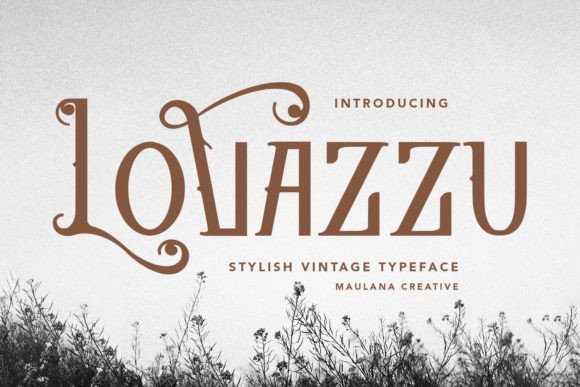
In a world awash with digital monotony, your brand craves a voice that speaks to the heart, a visual identity that captivates the senses and leaves an indelible mark on the minds of your audience. Enter Lovazzu Font, the ultimate display font crafted with meticulous attention to detail, exuding an aura of vintage elegance and timeless sophistication.
Lovazzu Font is a meticulously crafted masterpiece that embodies the essence of classic signage, where each letter dances with a graceful allure. Its stylish swirls and elegant curves evoke a sense of nostalgia, transporting you to an era where craftsmanship and artistry reigned supreme. This font is a testament to the enduring power of beauty, seamlessly blending the charm of the past with the vibrancy of the present.
With Lovazzu Font as your creative ally, you can unleash your imagination and craft designs that resonate with your audience on a profound level. Its versatility extends from eye-catching logos and captivating titles to elegant headings that command attention. Whether you're embarking on a branding project, creating marketing materials, or designing social media graphics, Lovazzu Font will elevate your creations to new heights.
Imagine your brand's name, rendered in the exquisite strokes of Lovazzu Font, becoming an emblem of sophistication and timeless appeal. Your website headlines will dance with a newfound energy, captivating visitors and inviting them to delve deeper into your digital abode. Social media posts adorned with Lovazzu Font will ignite conversations and leave a lasting impression on your followers.
Lovazzu Font is more than just a collection of characters; it's an invitation to embark on a creative journey, to transcend the ordinary and embrace the extraordinary. Its vintage charm and modern sensibilities create a harmonious symphony of aesthetics, ensuring that your designs stand out from the crowd.
Join the ranks of discerning designers and tastemakers who have embraced Lovazzu Font as their creative weapon of choice. Let your designs speak volumes, let your brand identity exude an air of sophistication, and let Lovazzu Font guide you towards creative fulfillment.